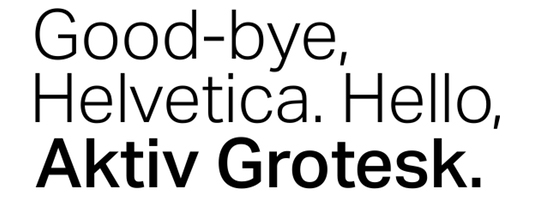
Aktiv Grotesk Font Family. It has been described as a “helvetica killer.” the designers of aktiv grotesk wanted to create something in between helvetica and univers by removing the quirks from helvetica and adding a bit of warmth to univers. Free download is available on our website.
A flexible and diverse family of 24 styles. Aktiv grotesk, dalton maag, and dama are registered trademarks of dalton maag. Aktiv grotesk bold is a popular type font that can be used on any device such as pc, mac, linux, ios and android.
Aktiv Grotesk Cd Font Family Series Mainly Provide Regular,Italic,Bold And Other Font Styles.
Aktiv grotesk is one of my personal favorite grotesques. #1 add to the head section of web page. It takes an authoritative but neutral position, lending your message support, without overpowering it.
It Has Been Described As A “Helvetica Killer.” The Designers Of Aktiv Grotesk Wanted To Create Something In Between Helvetica And Univers By Removing The Quirks From Helvetica And Adding A Bit Of Warmth To Univers.
You Will Find That Aktiv Grotesk Pairs Well With Robust Serif Fonts, Such As The Cordale, King's Caslon, And Lexia Font Families.
It takes an authoritative but. It takes an authoritative but neutral position, lending your message support. The aktiv grotesk family is a 21st century interpretation of a grotesque sans typeface.
It takes an authoritative but neutral position, lending your message support, without overpowering it. Free download aktiv grotesk for macos, windows, sketch, figma, photoshop and web site. The aktiv grotesk family is a 21st century interpretation of a grotesque sans typeface.
A Flexible And Diverse Family Of 24 Styles.
Aktiv grotesk ex font family series mainly provide regular,italic,bold and other font styles. The aktiv grotesk family is a 21st century interpretation of a grotesque sans typeface. Aktiv grotesk, dalton maag, and dama are registered trademarks of dalton maag ltd.